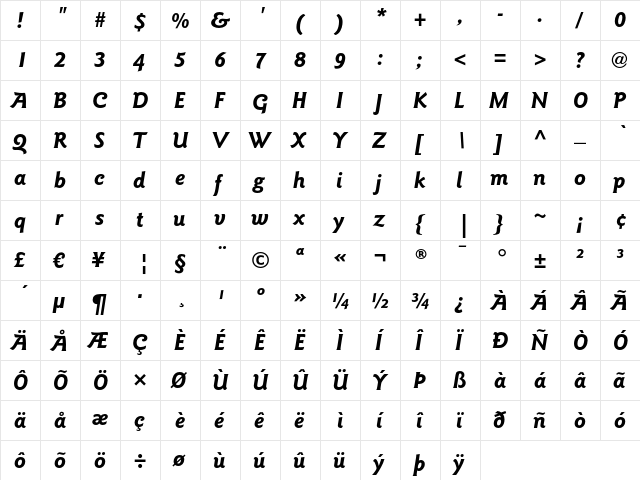
ITC Goudy Sans LT Bold Italic Font Preview
ITC Goudy Sans LT Bold Italic
ITC Goudy Sans LT Bold Italic Font Details
Design Context for ITC Goudy Sans LT Typeface
ITC Goudy Sans LT offers clean, dependable letterforms without strong stylistic allegiance, making it a practical choice for designers who need flexibility. The dynamic lean of this cut emphasises speed and emphasis in any layout. Its bold stroke weight gives it real presence on the page.
Pro Tip: Use ITC Goudy Sans LT for emphasis, pull quotes, and subheadings where its slanted energy can add rhythm to the layout.